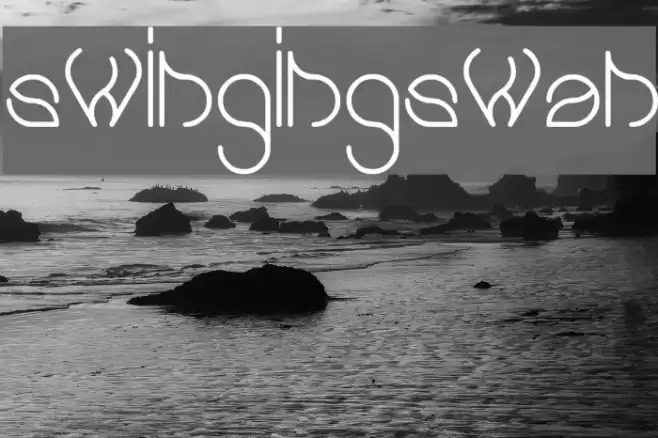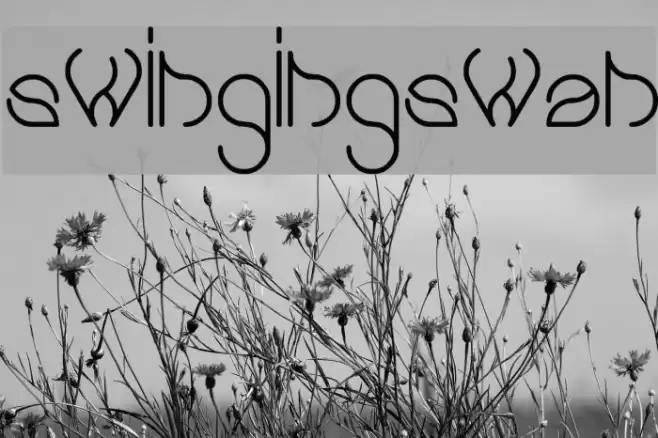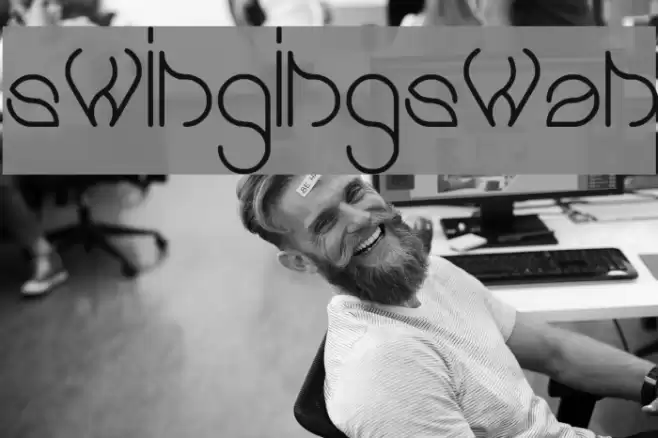
swingingswan Font
swingingswan Description
This font features a unique and artistic design with a modern twist. Each character is crafted with a continuous, flowing line that creates a sense of movement and fluidity. The letters have a playful yet sophisticated appearance, with rounded edges and smooth curves that give it a distinctive style. The uppercase and lowercase letters maintain a consistent design, while the numbers and special characters complement the overall aesthetic. This font is perfect for projects that require a creative and contemporary look, offering a fresh take on traditional typography.
A modern, artistic font with flowing lines and a playful yet sophisticated style from Uncategorized fonts.
- Proposed Projects: Ideal for branding, logo design, creative posters, and modern art projects.
- Use Case: Logos, Headlines, Creative projects